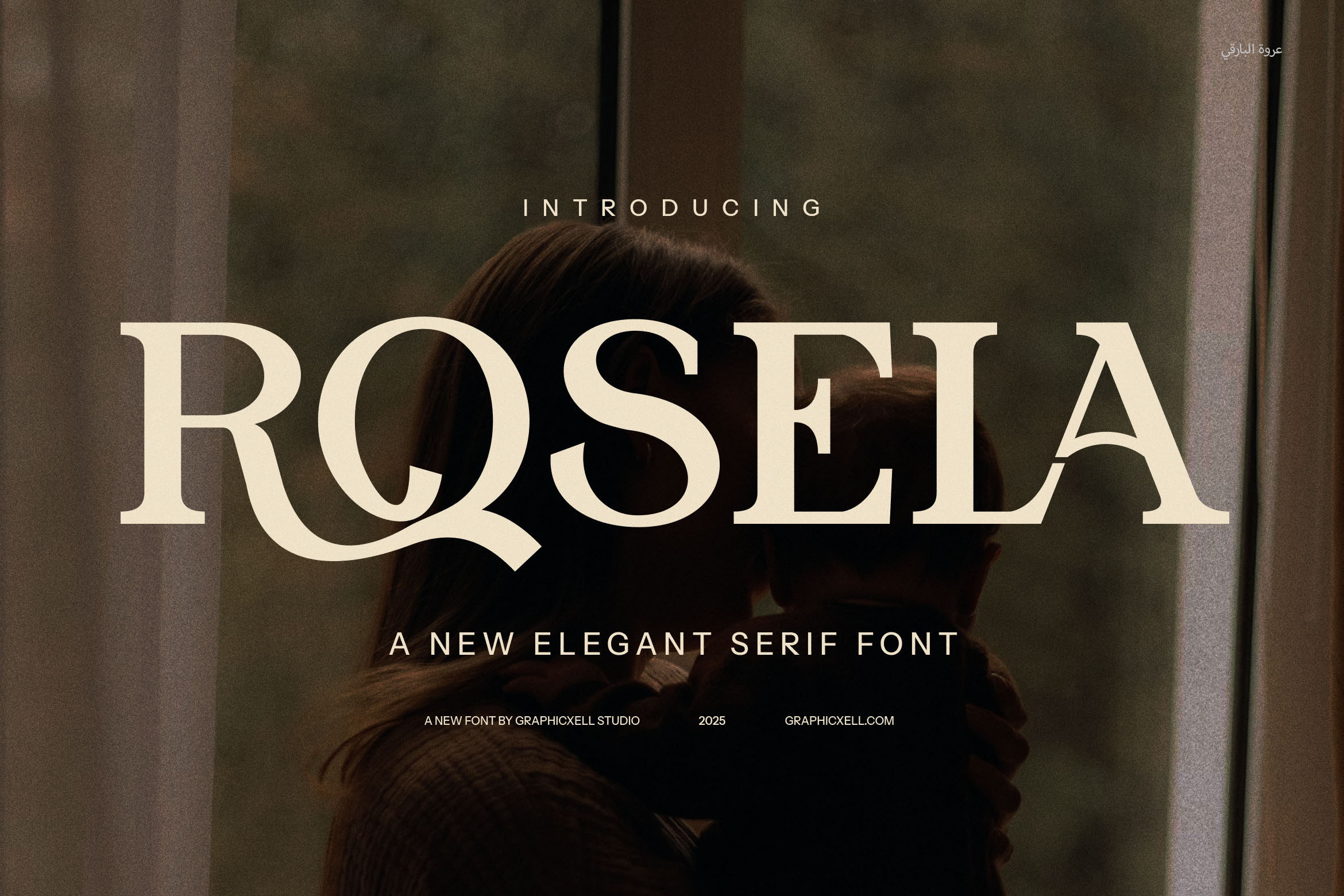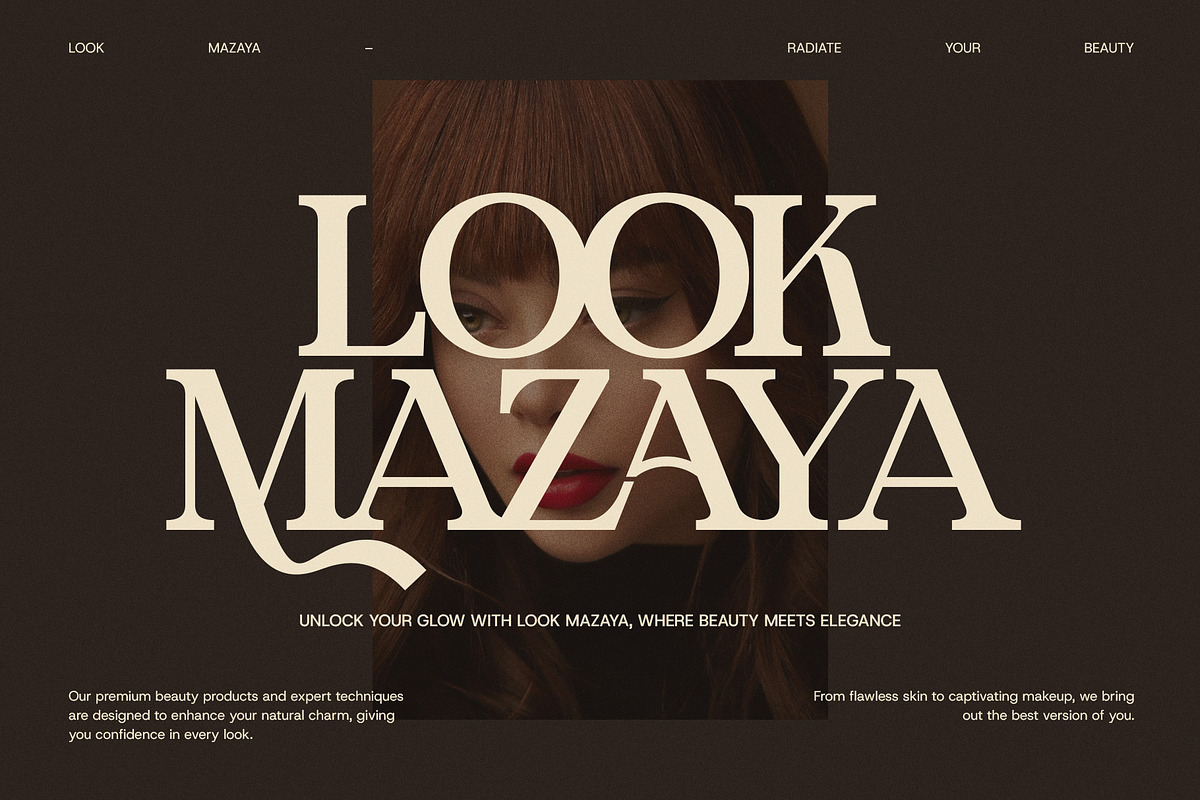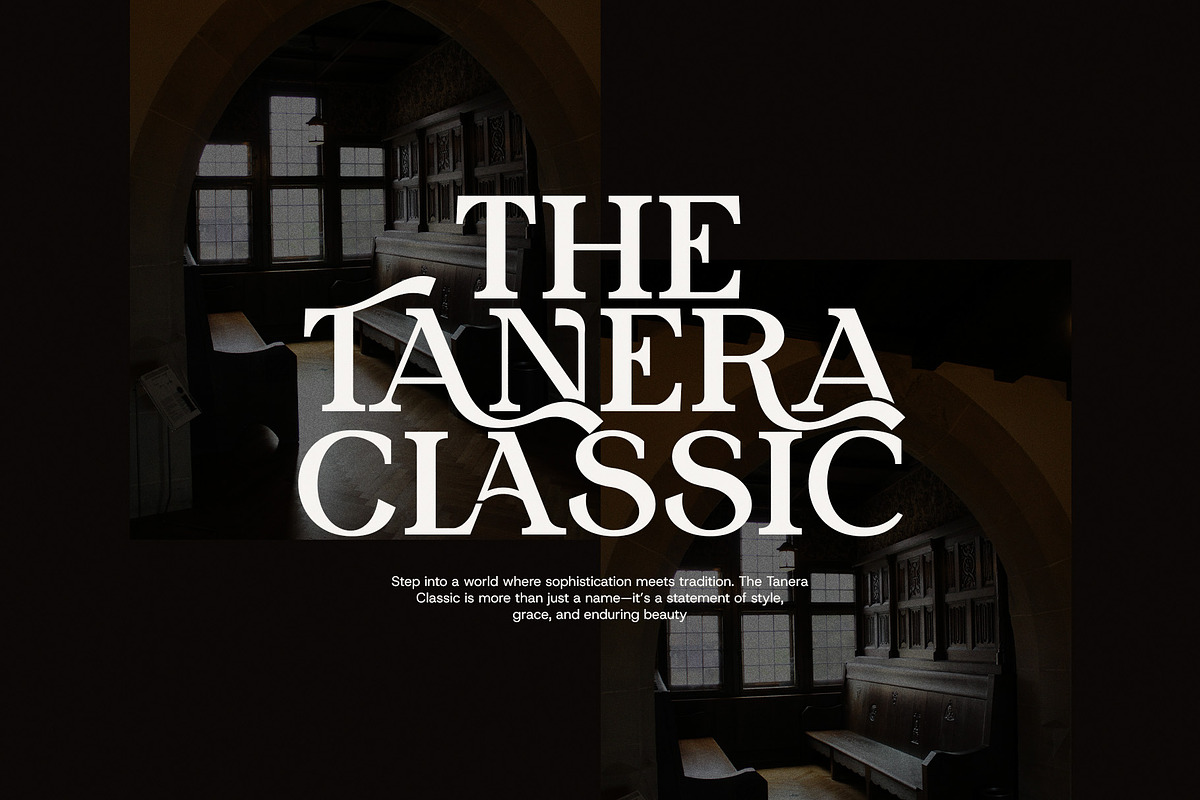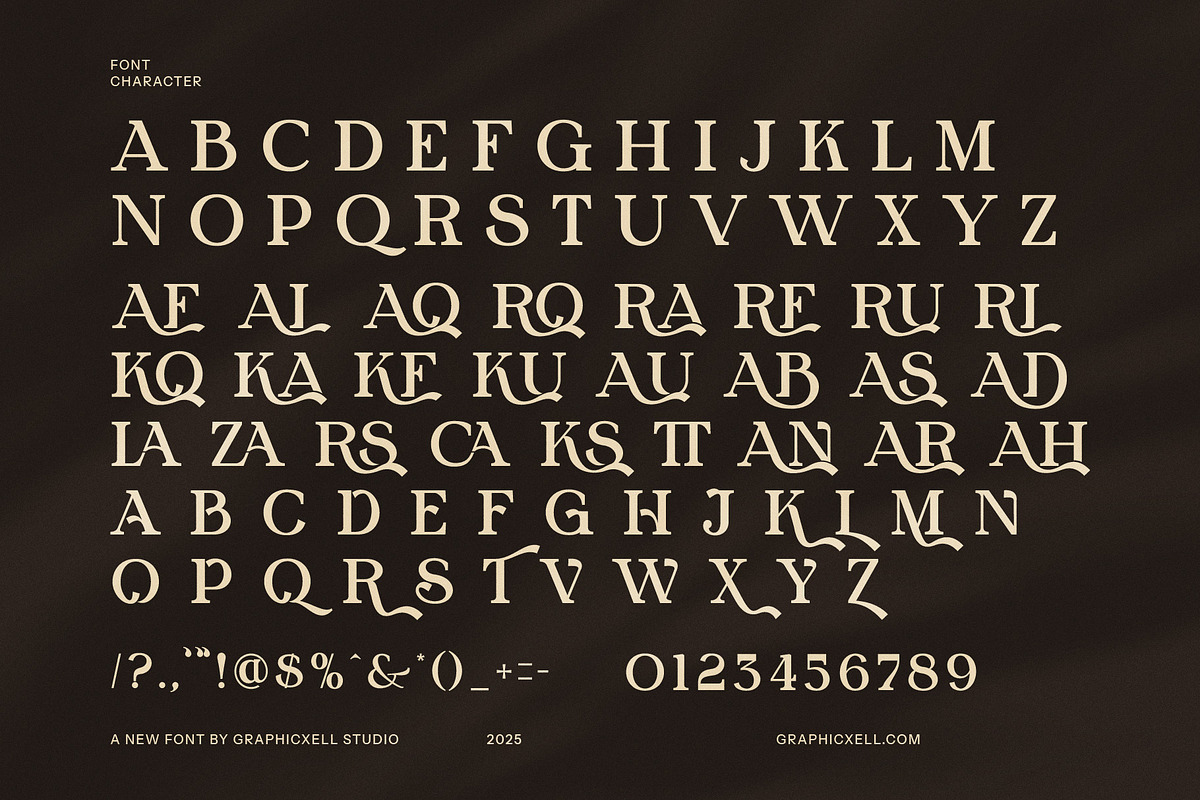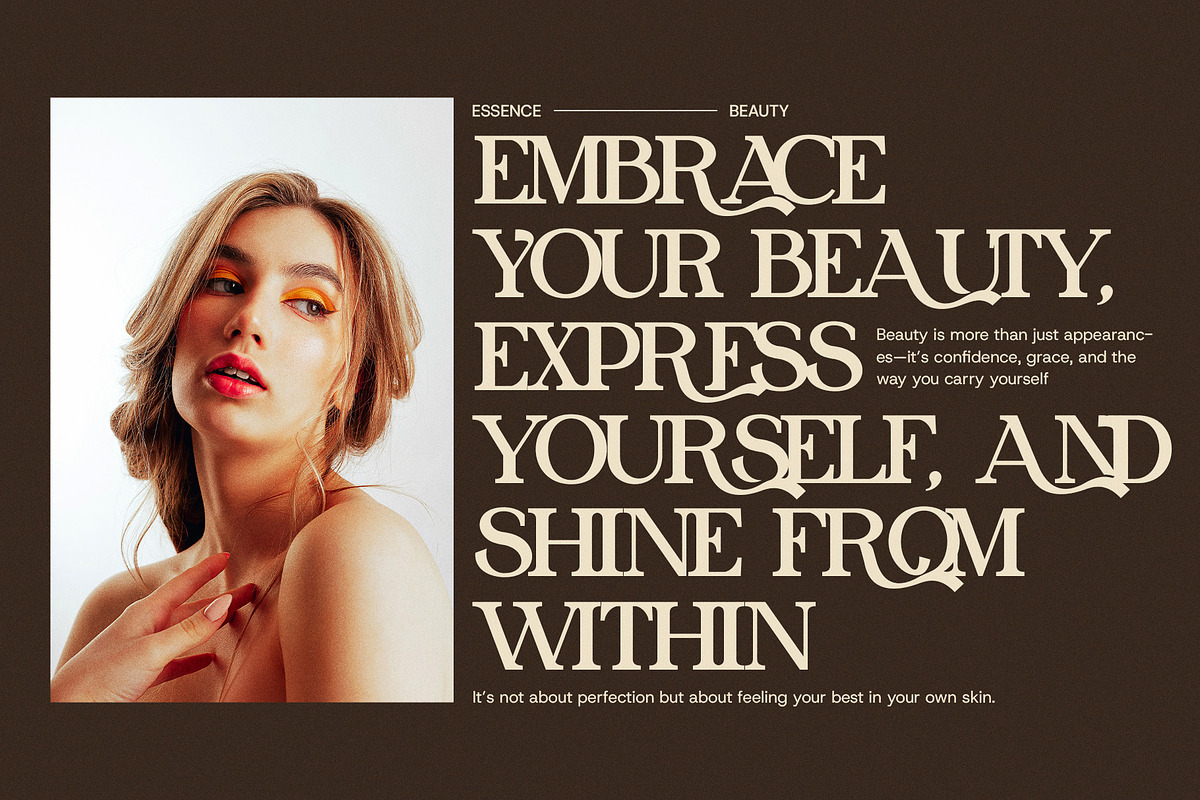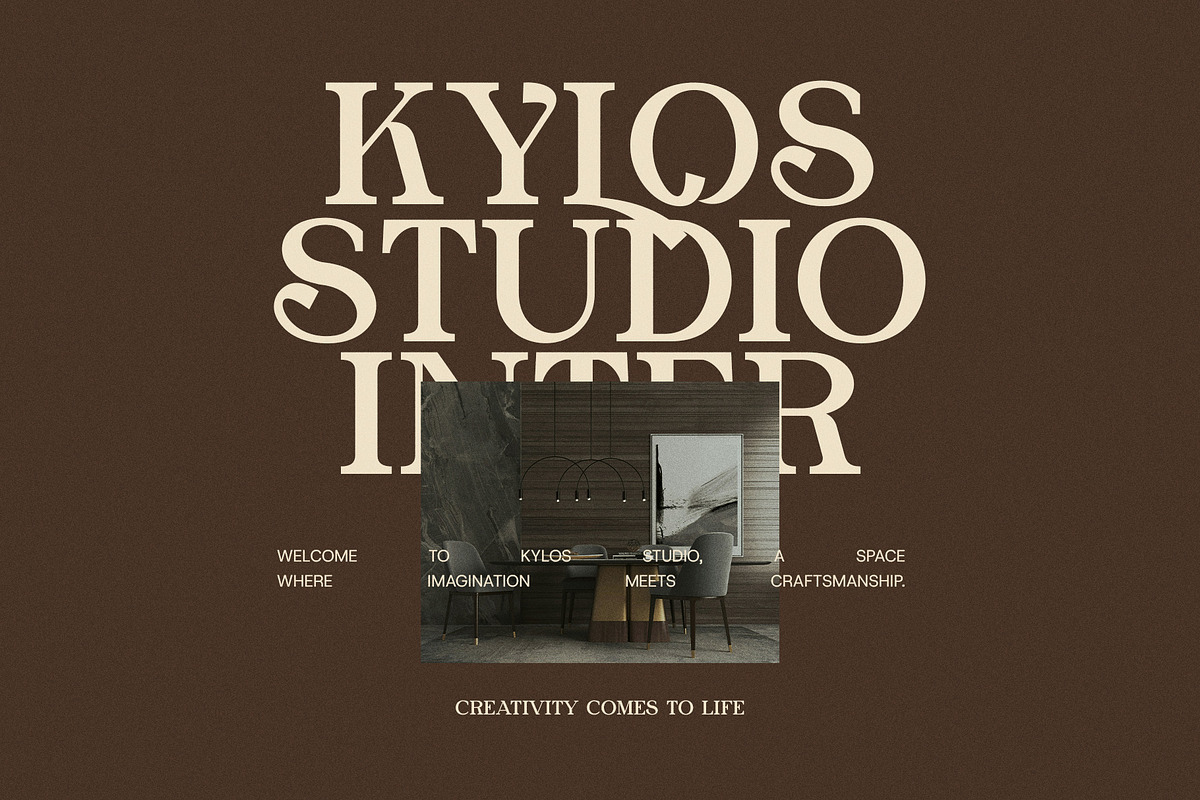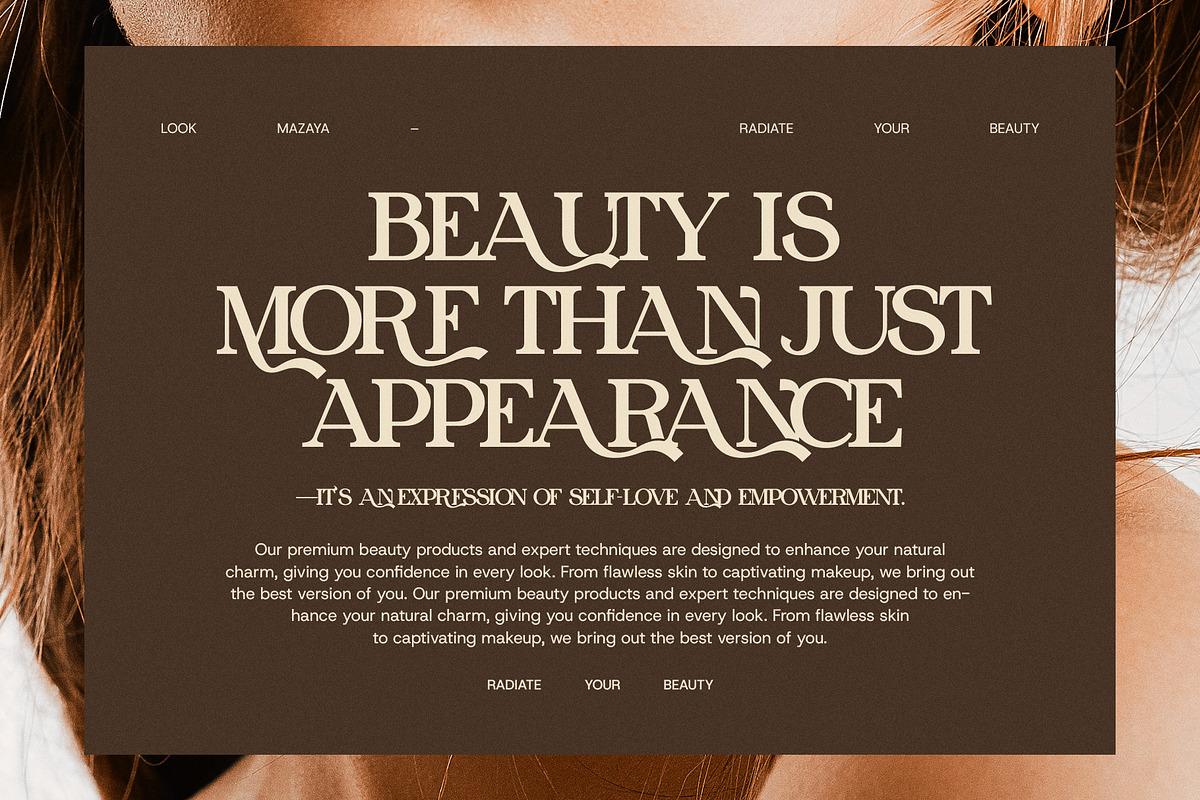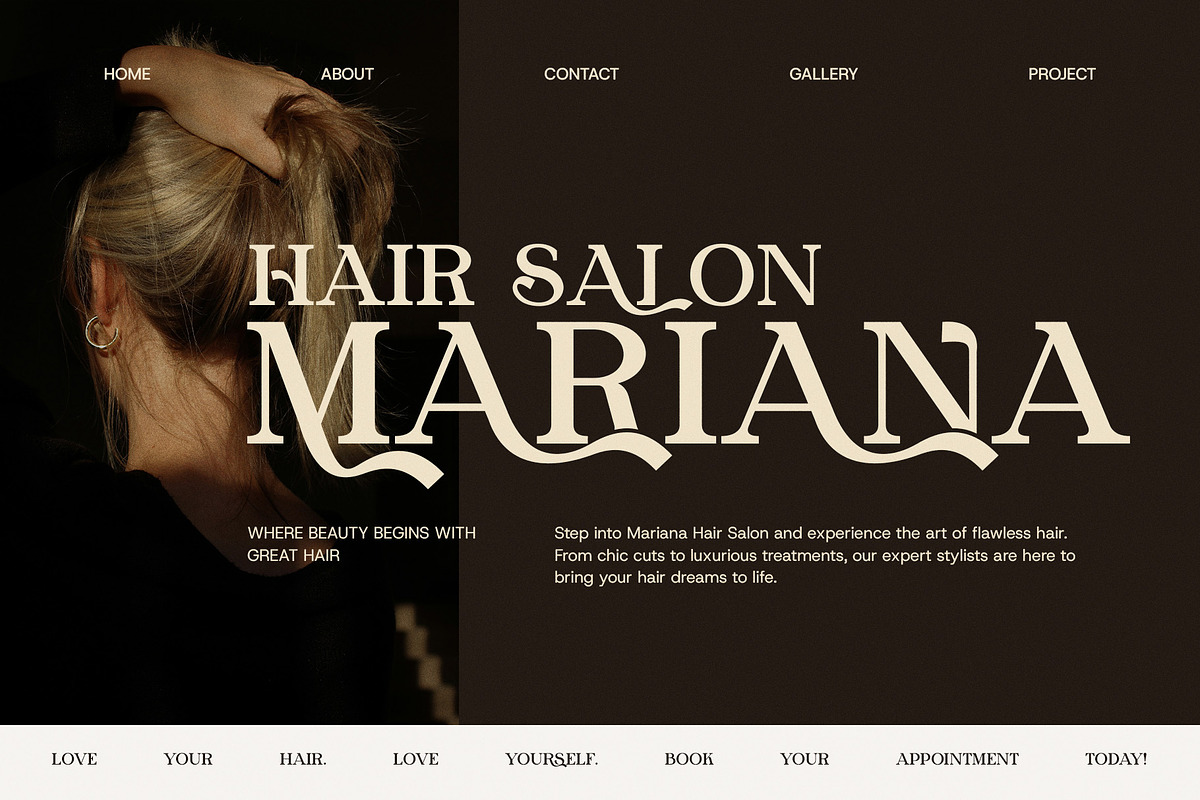
Rosela Modern Serif Font Typeface
Introducing Rosela Modern Serif Font Typeface – the epitome of sophistication and contemporary elegance. With its sleek, refined serifs and meticulously designed letterforms, Rosela is a modern typeface that effortlessly blends classic luxury with a fresh, stylish appeal. This font is perfect for projects that demand a touch of elegance, making it ideal for high-end branding, upscale logos, and any design needing a chic, luxurious feel.
One of Rosela’s standout features is its elegant, functional ligatures. These specially crafted ligatures enhance the flow of the type, creating a seamless connection between characters that adds both visual appeal and functional beauty. Whether you're designing a premium magazine layout, a boutique website, or a luxury product label, Rosela’s ligatures ensure your text feels cohesive and refined, elevating the overall aesthetic of your design.
Rosela was designed with classy, luxury-focused women’s brands in mind. Its graceful and unique design gives off an air of exclusivity, making it the ideal choice for businesses in the fashion, beauty, or lifestyle industries. From exclusive logos and branding campaigns to advertisements and websites, this typeface brings a level of sophistication that resonates with a high-end audience.
The versatility of Rosela makes it suitable for a wide range of applications, from elegant product packaging to eye-catching promotional materials. Its clean lines and refined details make it a perfect fit for boutique branding, fine dining, luxury fashion, and beyond. With its modern take on classic serif styling, Rosela is sure to make any project feel elevated and timeless.
Elevate your designs with Rosela Modern Serif Font – a typeface that exudes beauty, luxury, and style, making it the perfect choice for those seeking to leave a lasting impression with their branding and design.